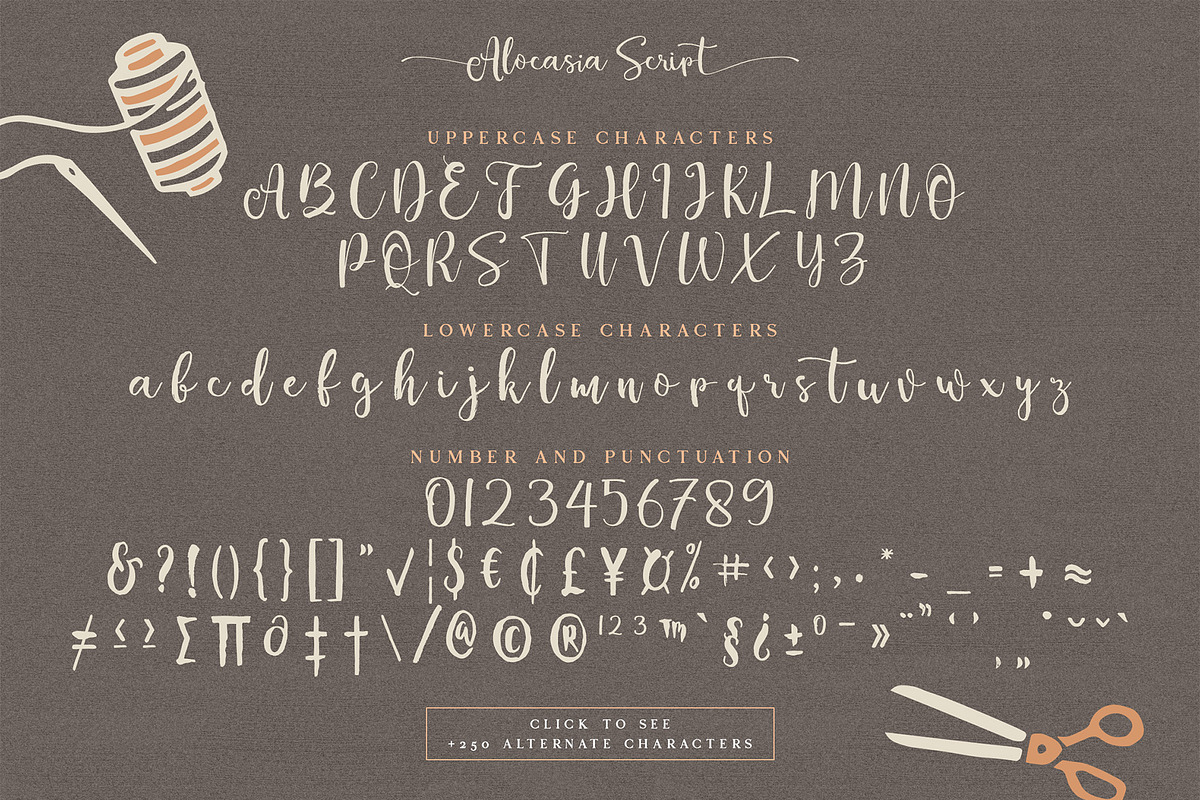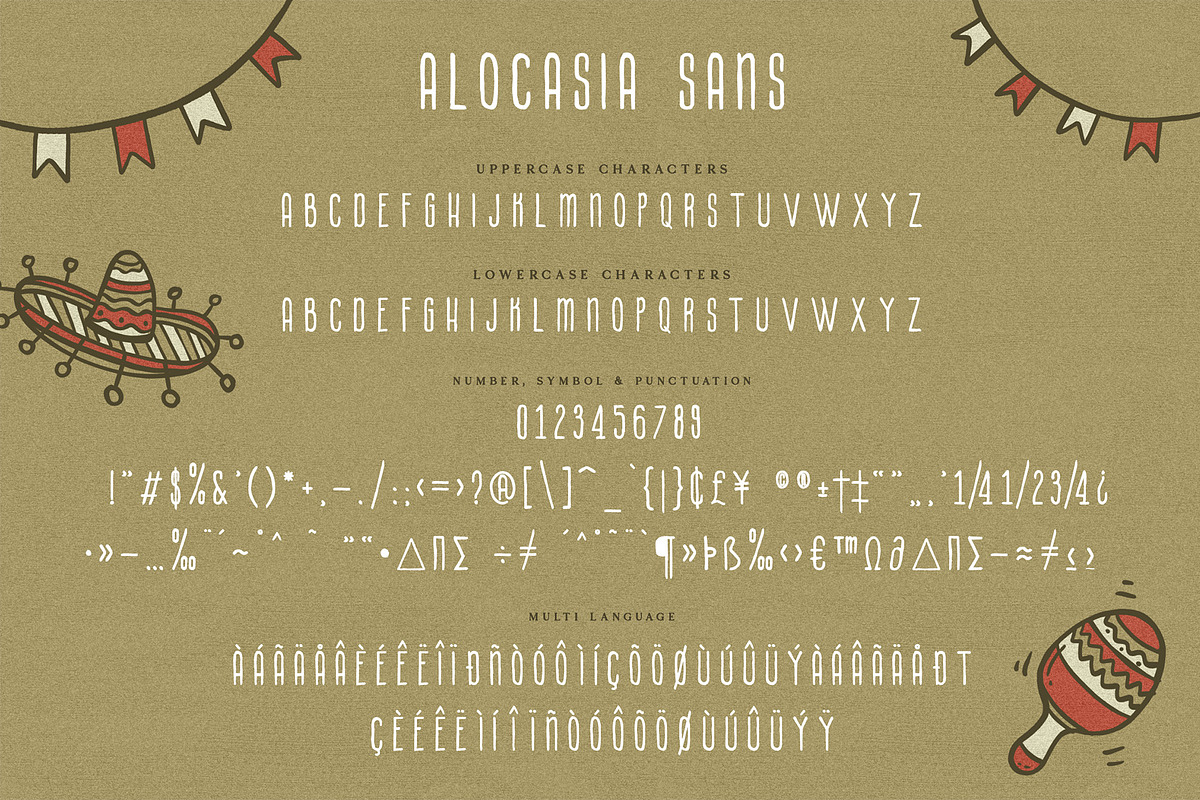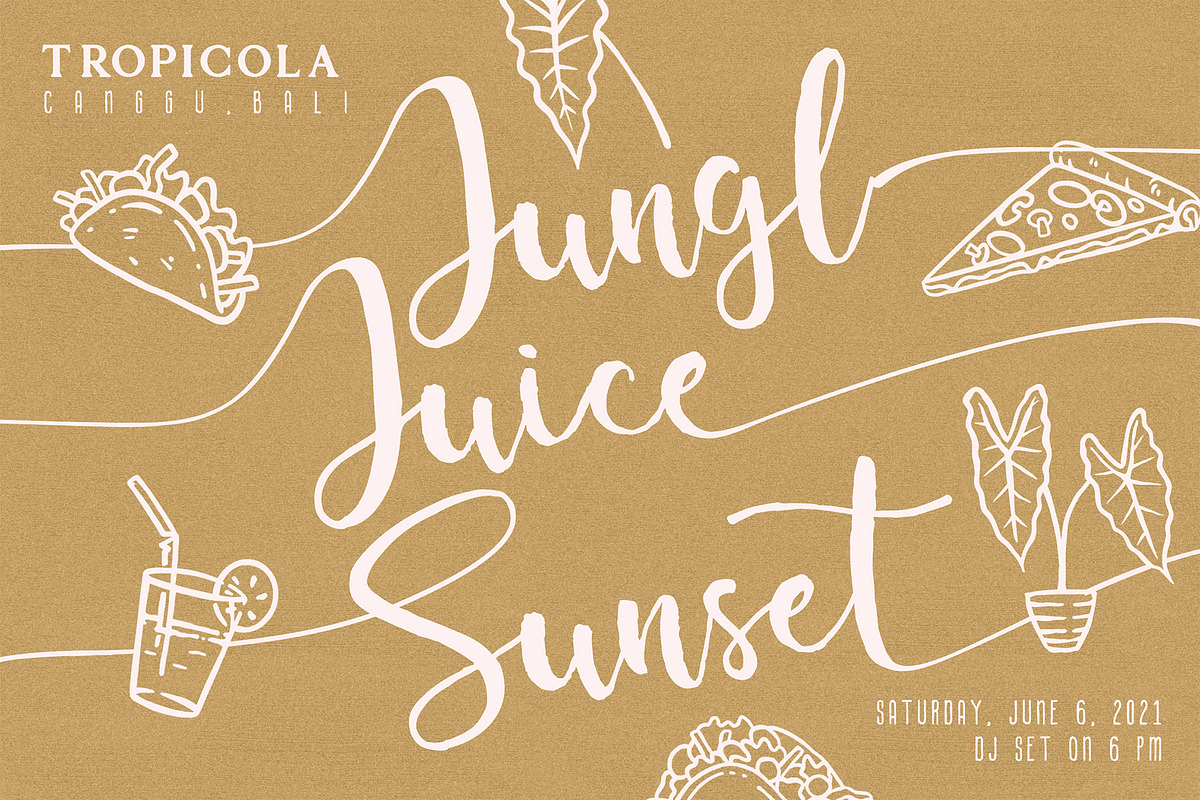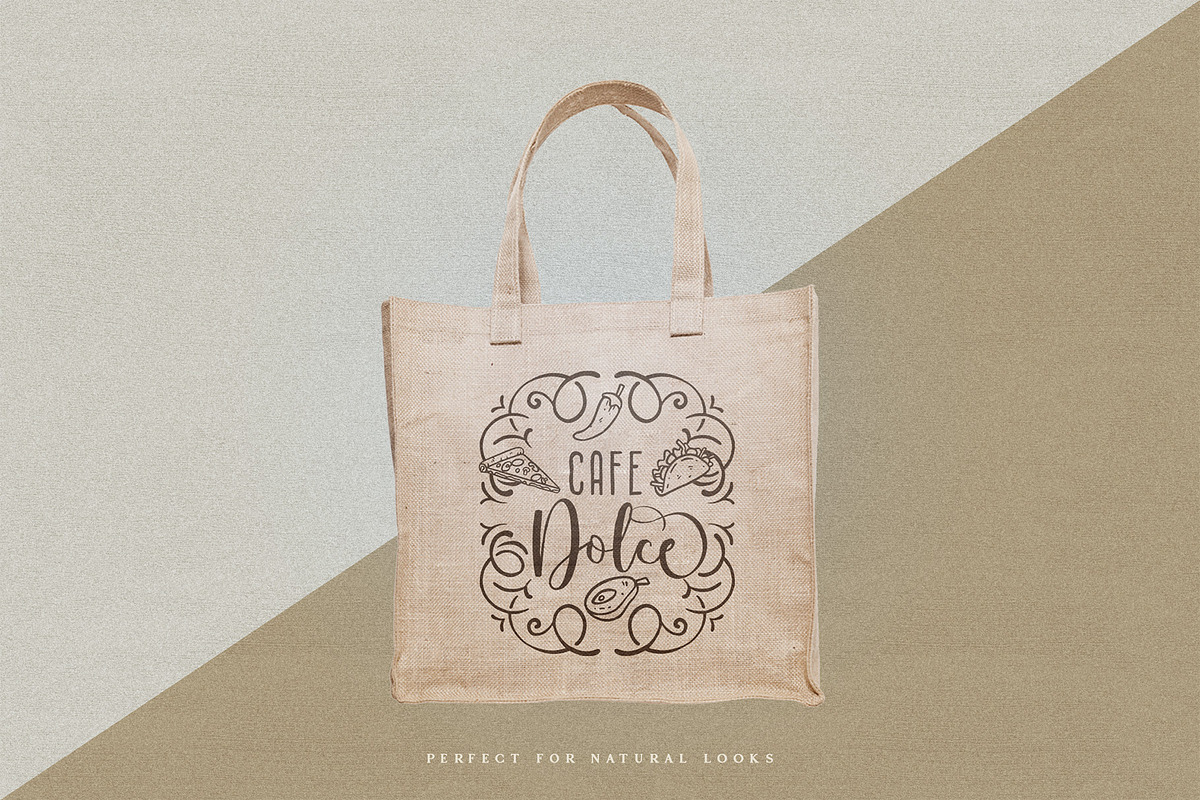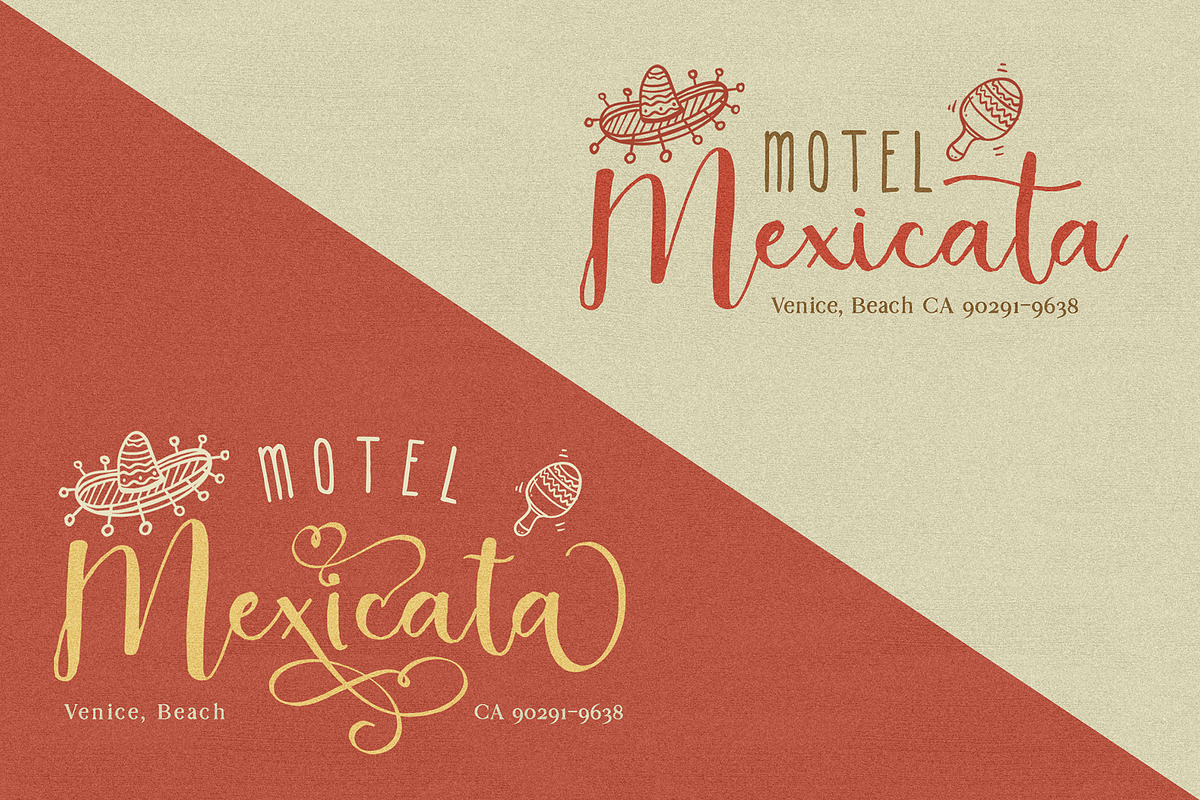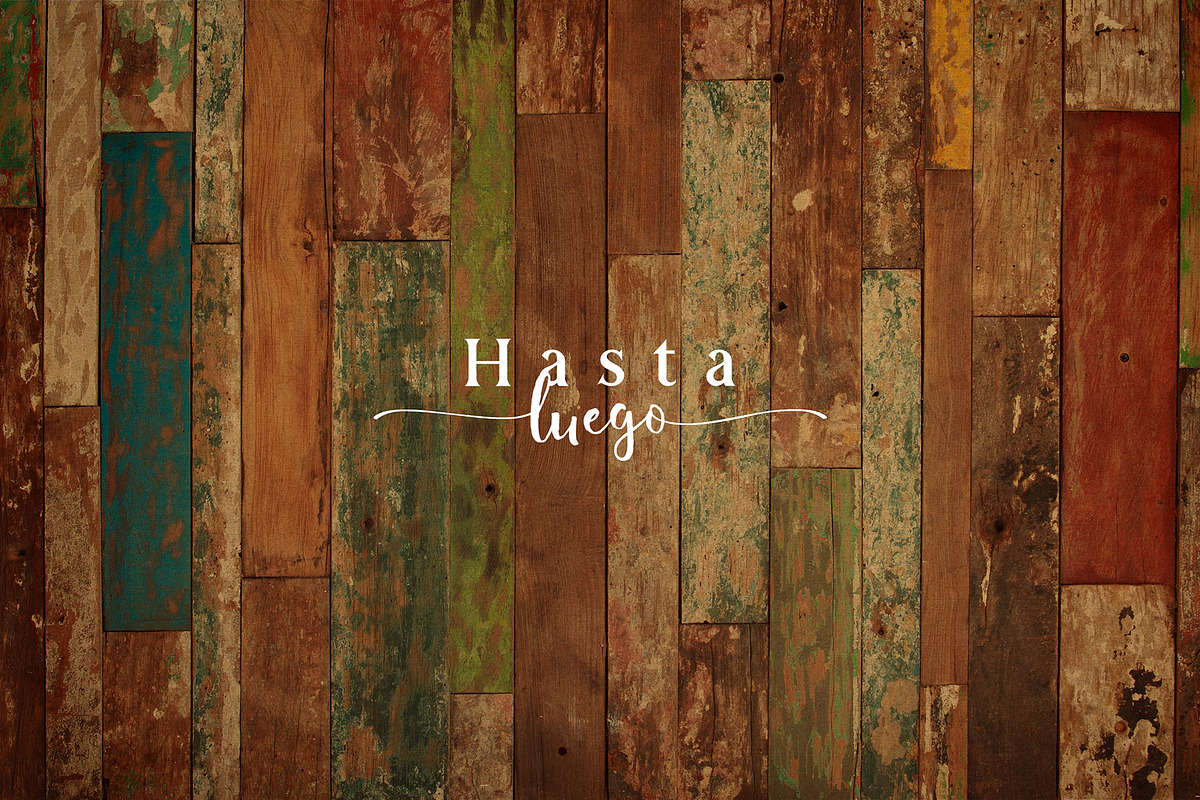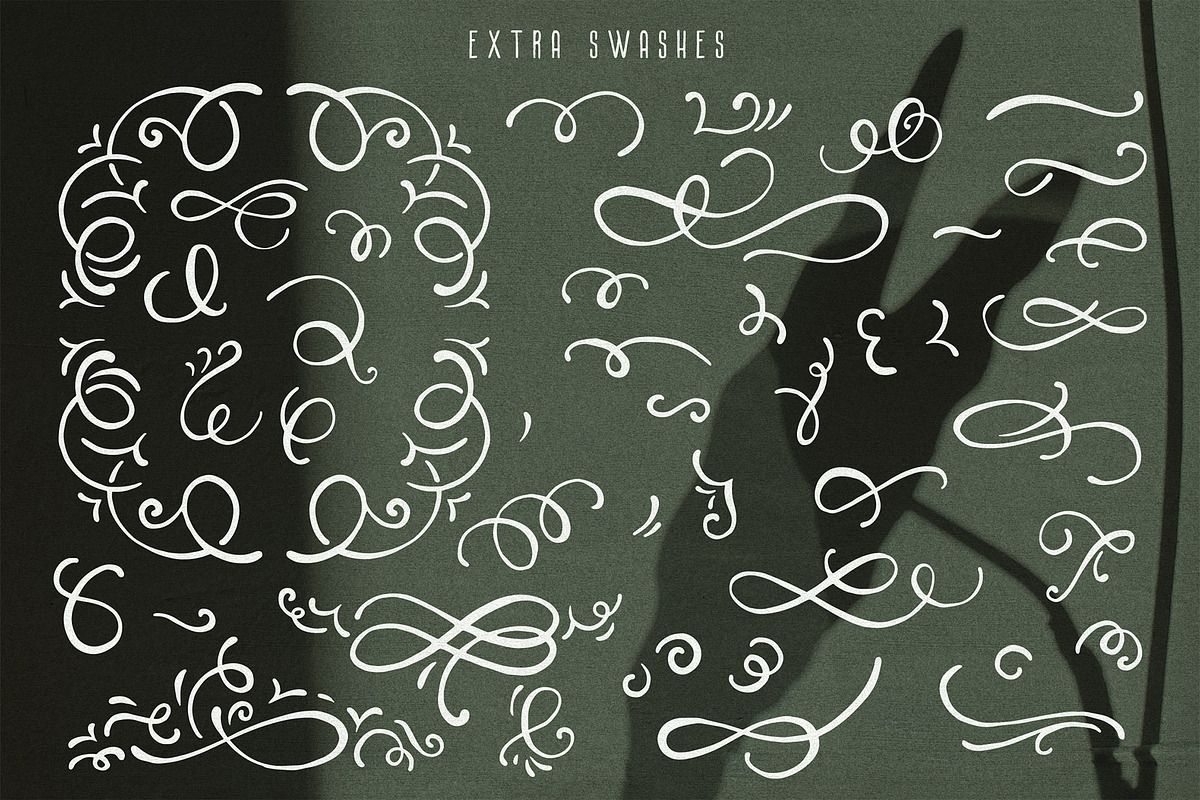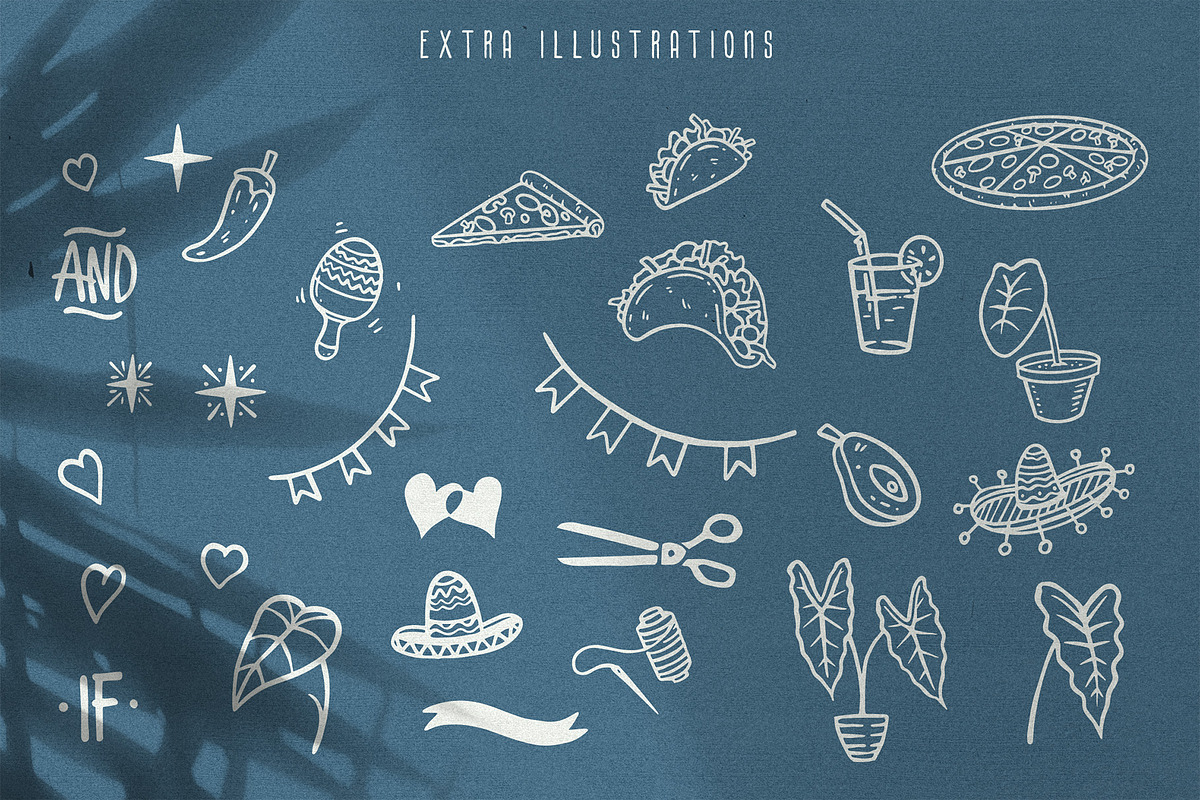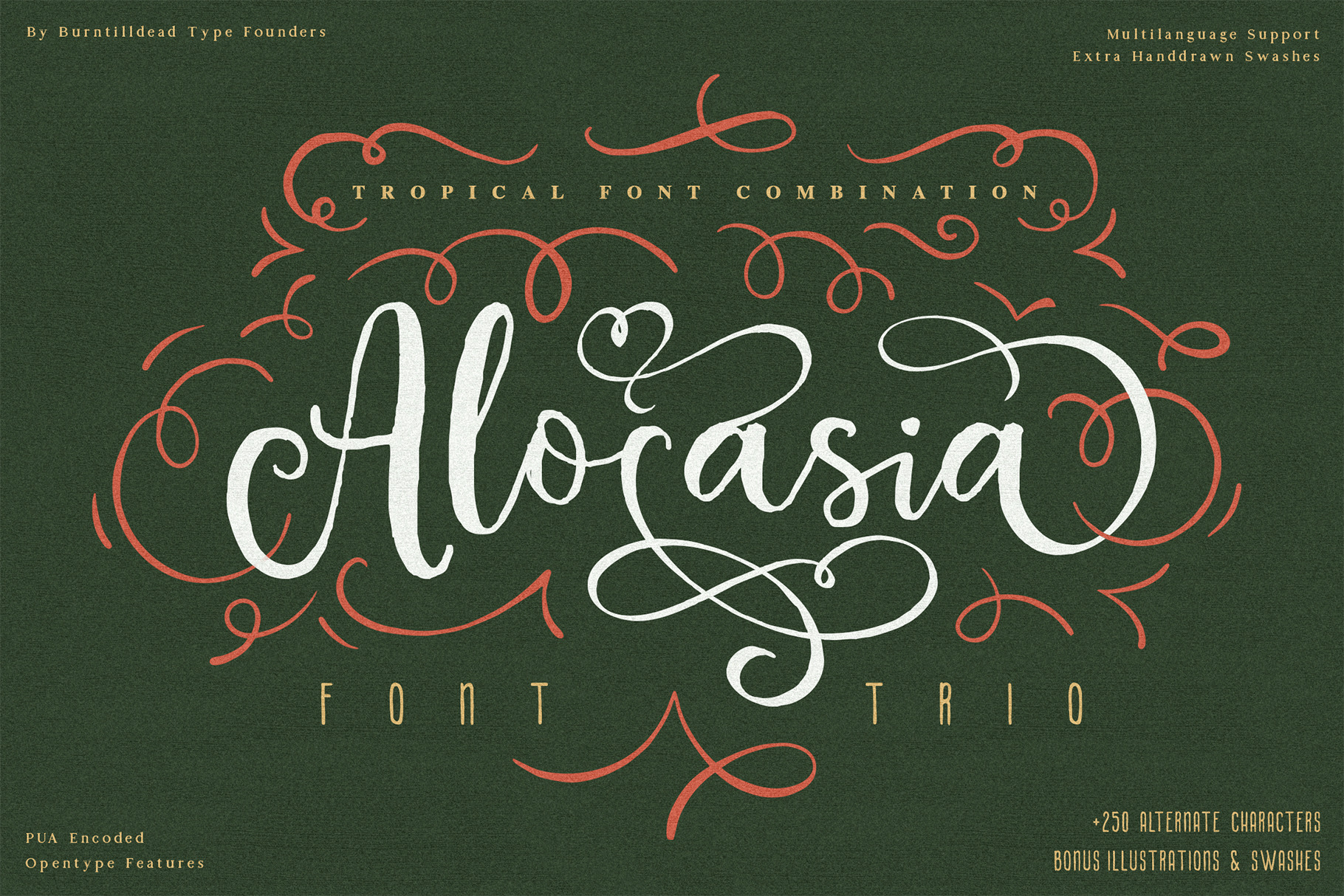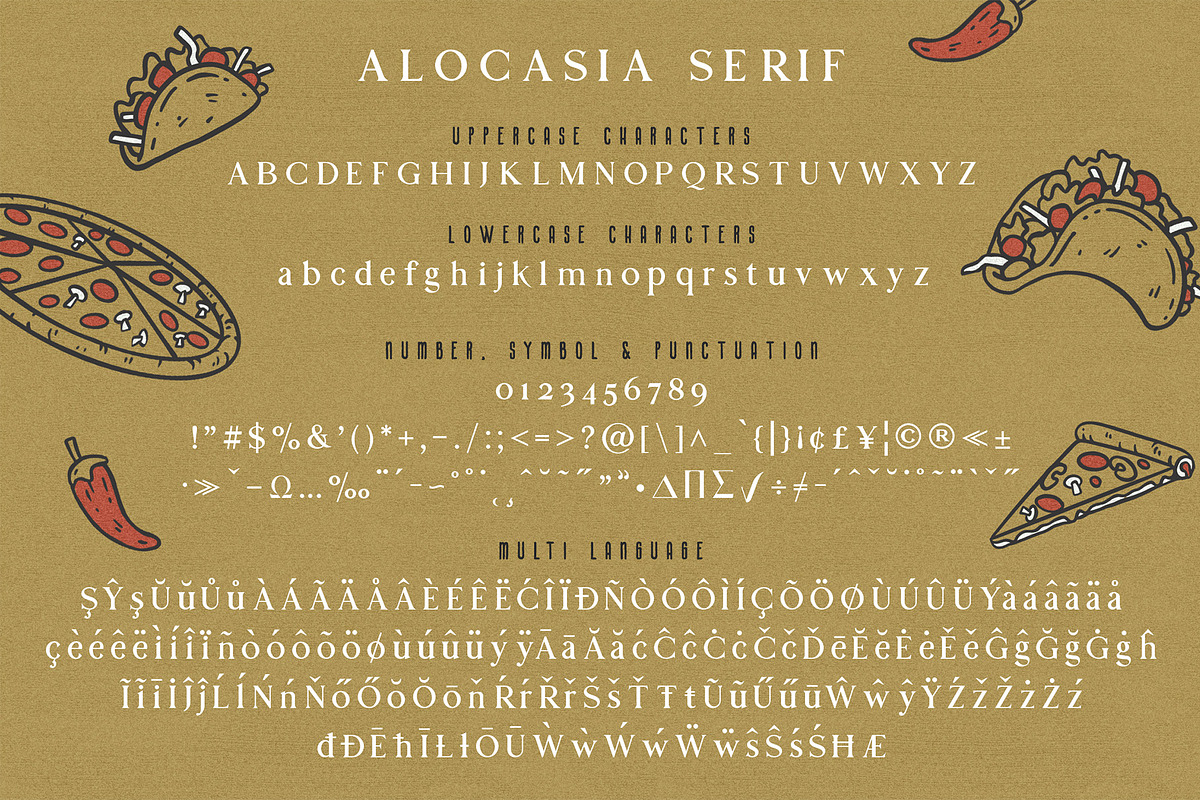
Alocasia-Trio Font Combination
Hello!!! my name is Alocasia, a tropical trio font with extra illustrations and swashes. The name of Alocasia took from tropical family plants genus. The idea of using the name is to bring a perfect vibe of tropical, natural & beauty. Our magnum opus is a complete set package (all you need!) for your handcraft and creativity.
Alocasia has 3 subtle style - each style bring different feel but when it joined together they bring a perfect looks. Brush script made it traditional and natural, Sans make it looks simple & serif style being more elegant.
The swashes & illustrations allow you to easily create frames and edges to mimic the best of traditional drawing looks.
Perfect for : elegant branding, wedding stationery, romantic book cover designs, classy packaging, album covers, handwritten quotes, greeting cards, unique social media posts, and so much more.